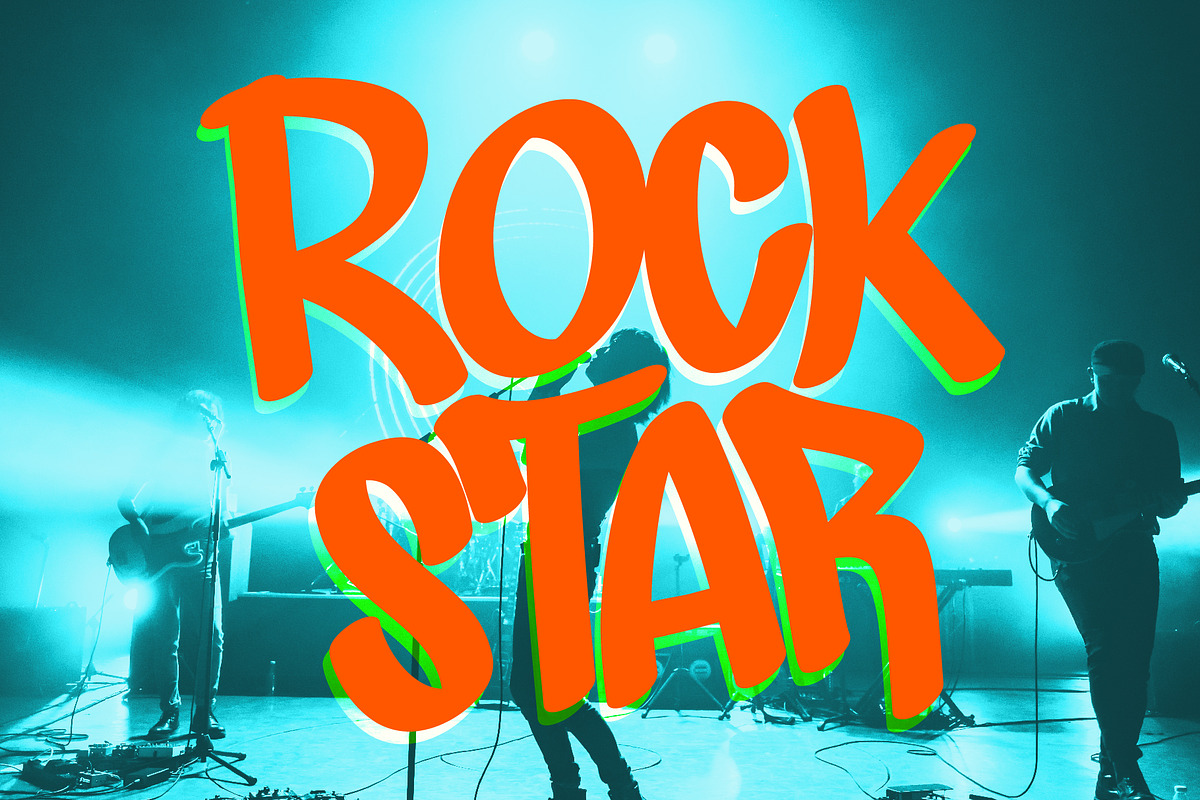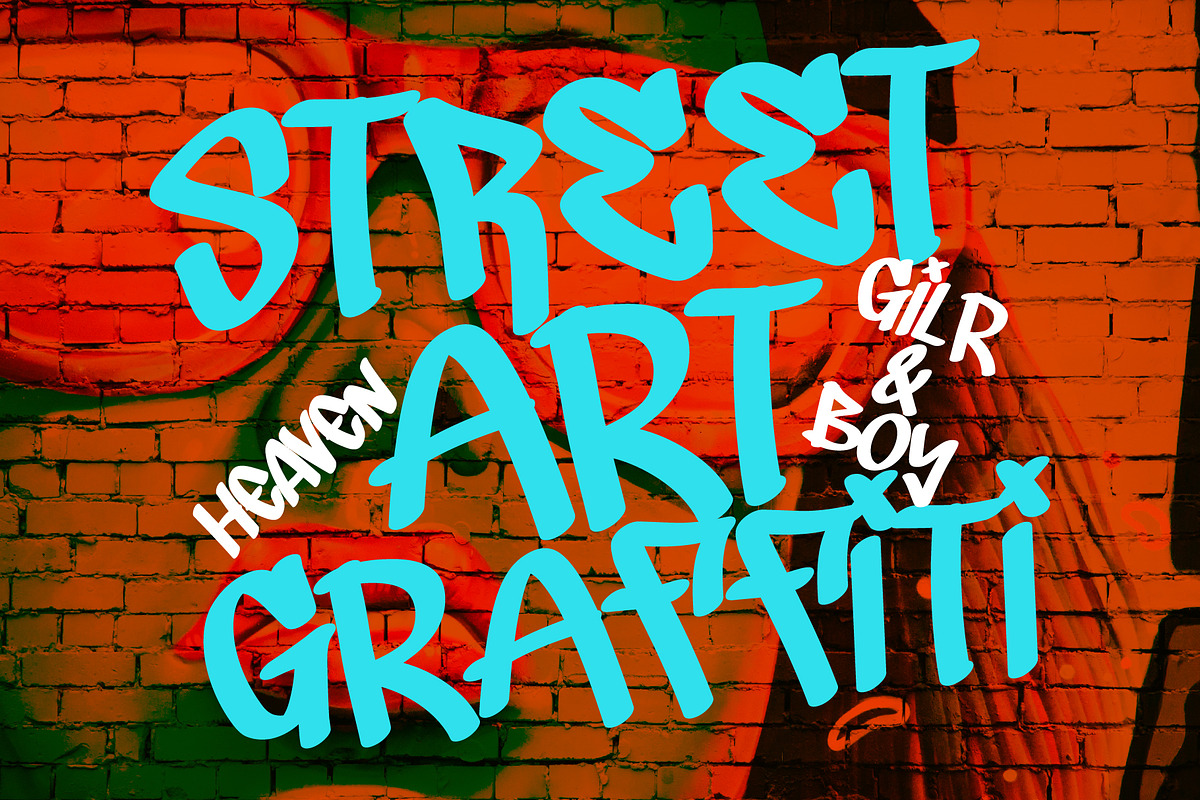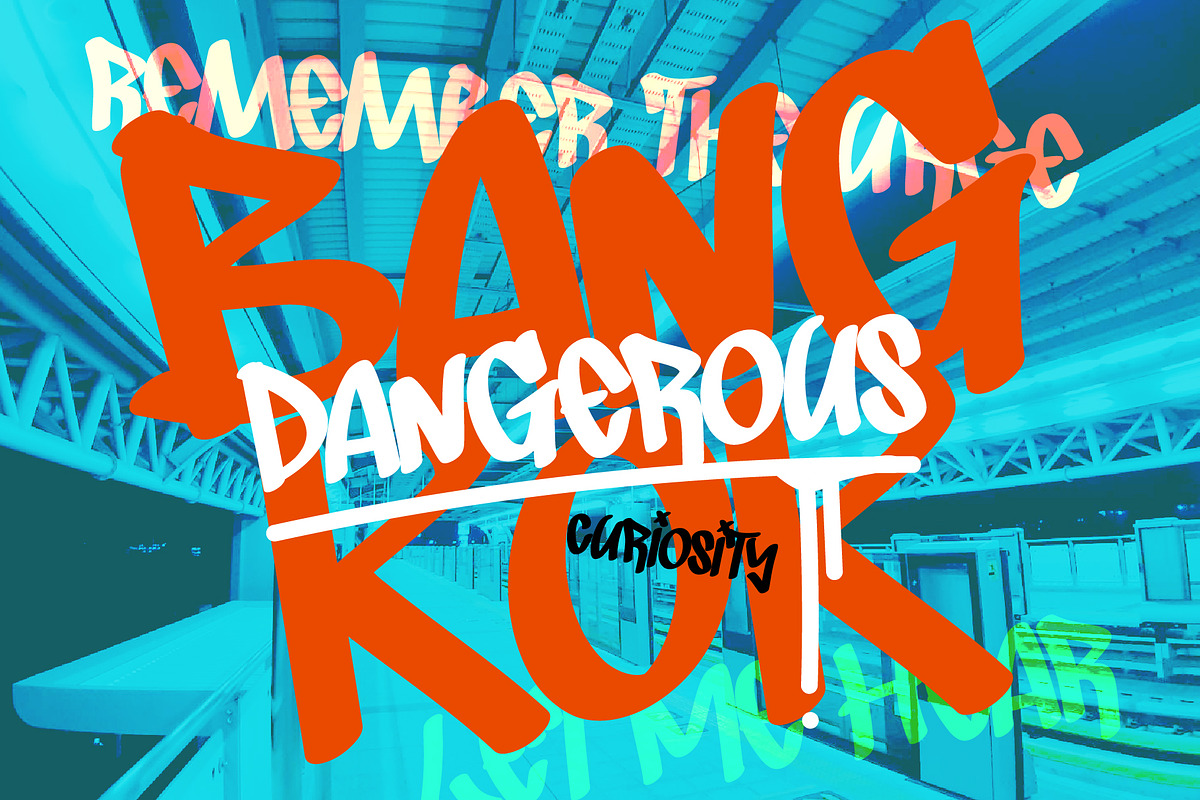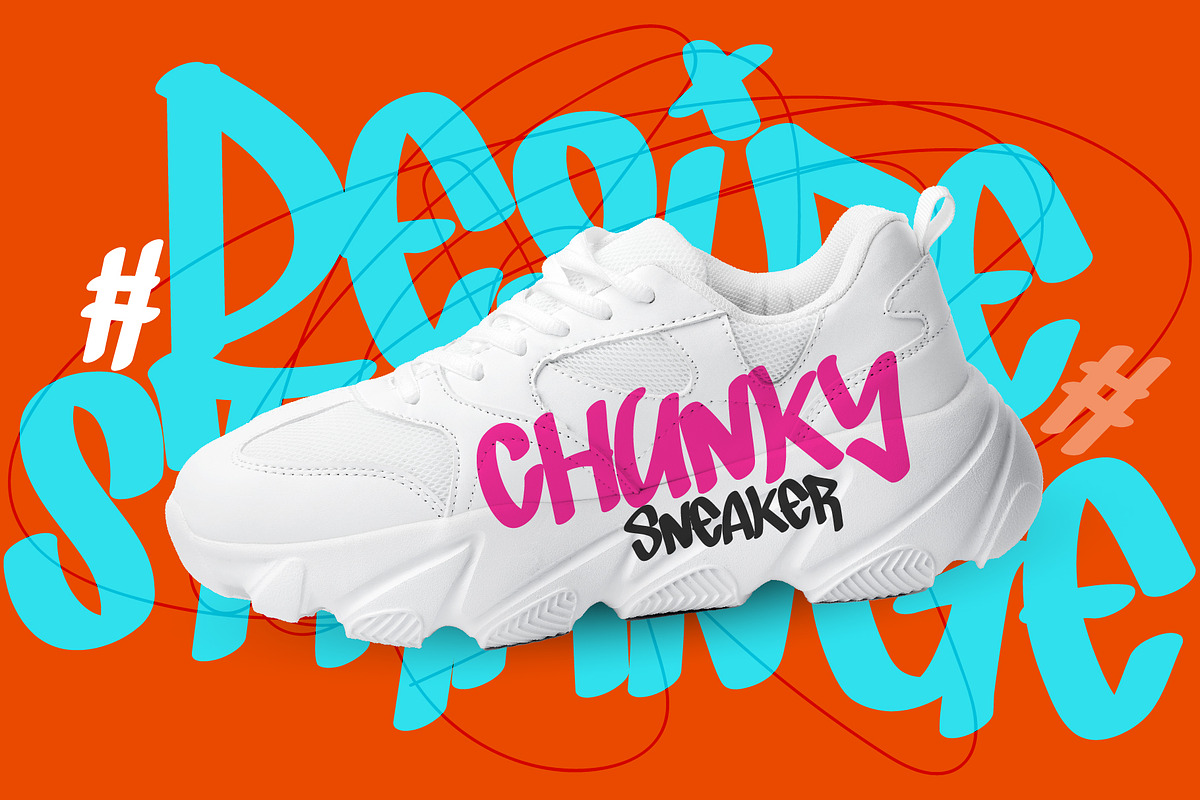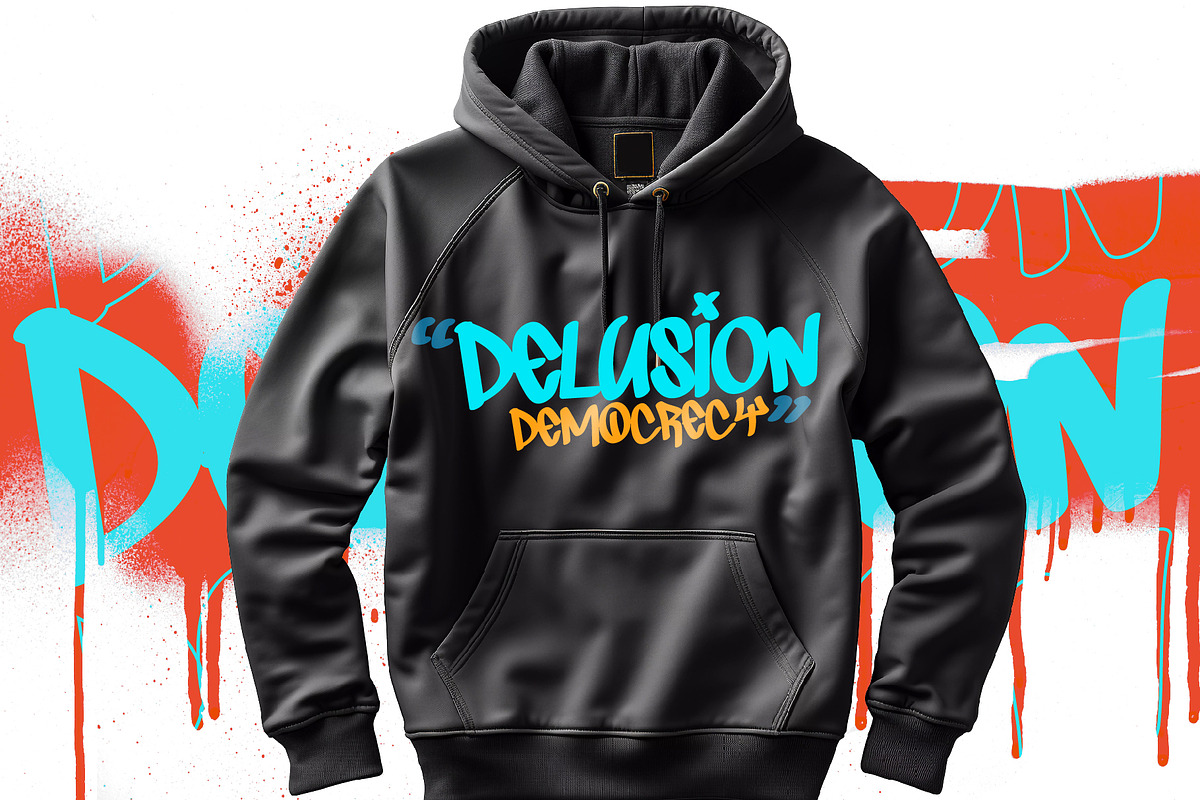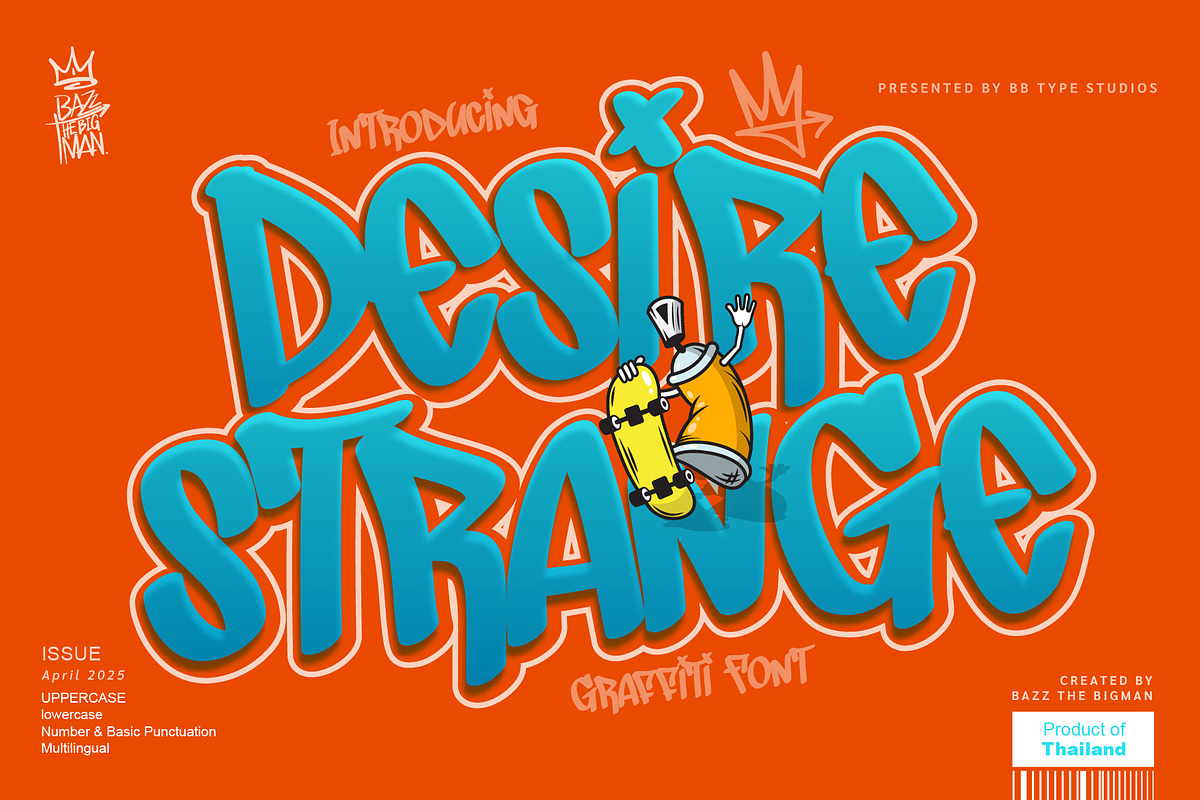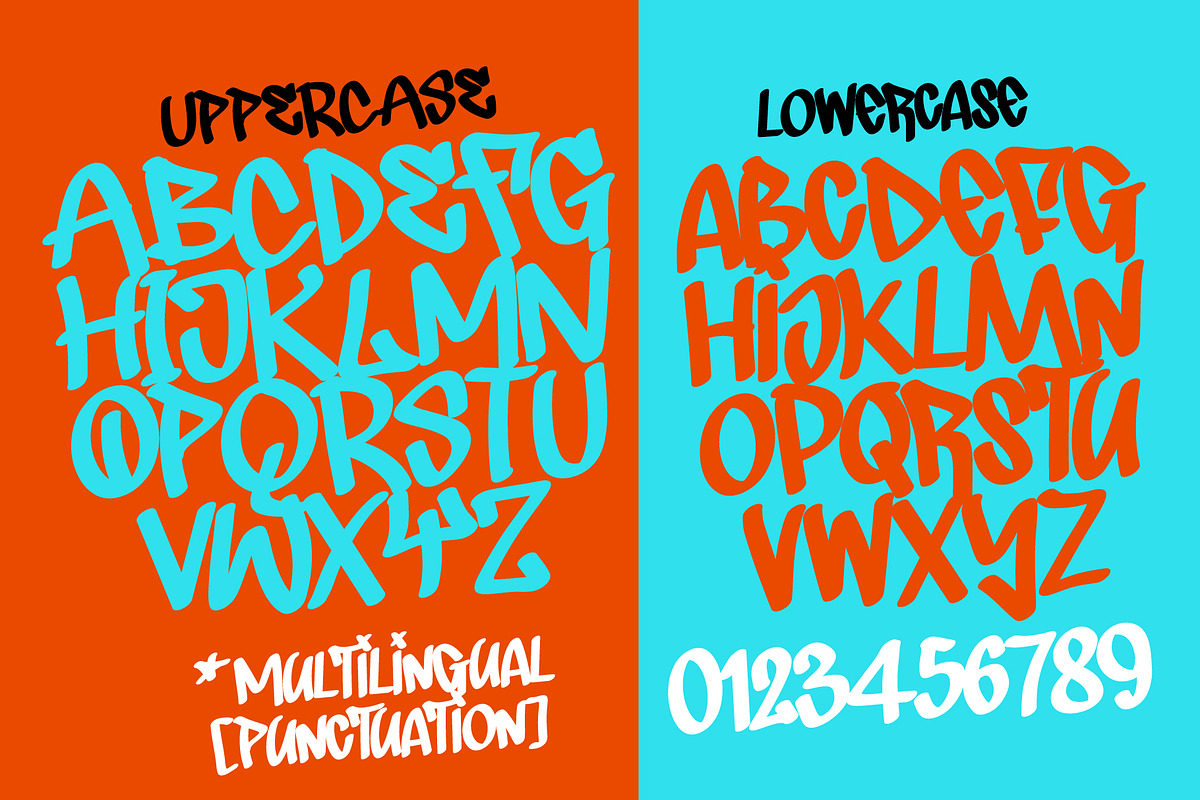
Desire Strange
Showcase the rebellious spirit of urban art with Desire Strange, a bold graffiti-inspired font. Its assertive character confidently captures the pulsing energy of street art, effortlessly transforming your designs, be it logos, T-shirts, book covers, or posters, into evocative pieces of art. It's especially great for sportswear and skateboards, infusing each with the thrills and dynamism of the downtown scene. Experience Desire Strange - the font that brings the vibrant city streets to your designs, and more.